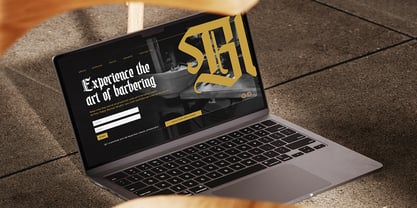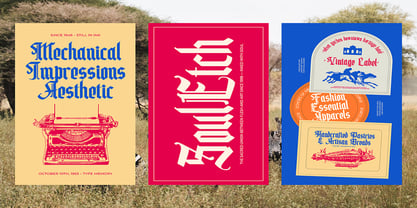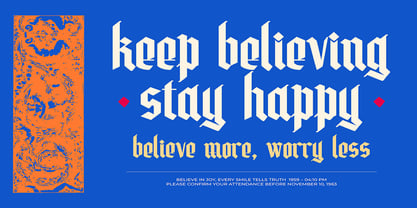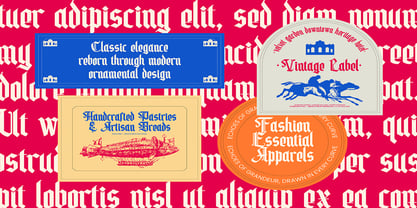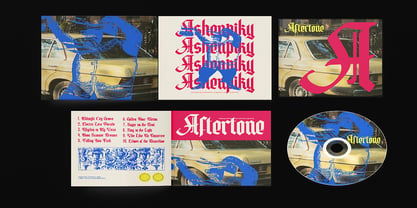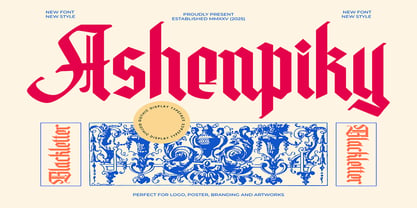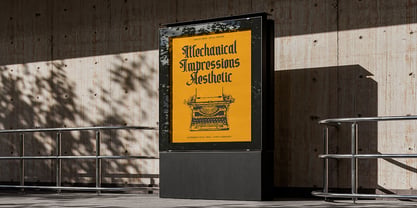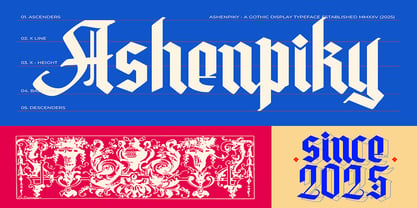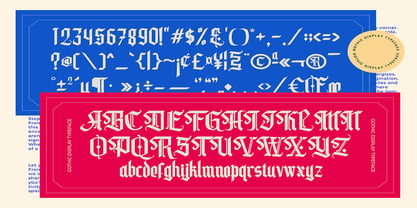
Ashenpiky
Ashenpiky: Classic Elegance, Reborn for the Modern Era
Unleash the power of bold, dramatic typography with Ashenpiky, a striking gothic display typeface designed to command attention. Balancing traditional blackletter roots with a sharp, contemporary edge, Ashenpiky brings a mesmerizing rhythm and unmistakable presence to any layout.
Whether you are crafting an identity rooted in heritage or pushing the boundaries of modern streetwear and editorial design, this font bridges the gap between ancient artistry and cutting-edge aesthetics.
Key Features
• Distinctive Blackletter Anatomy: Features tall, structural ascenders, sharp diamond-shaped punctuation, and beautifully curved ornamental entry strokes on capitals that give your text a hand-drawn, artisanal soul.
• Modern Geometry & Rhythm: Engineered with balanced x-heights and precise spacing to ensure it remains surprisingly legible while retaining its aggressive, edgy character.
• Complete Character Set: Fully equipped with uppercase letters, lowercase letters, numbers, and an extensive array of symbols and punctuation marks to cover all your creative needs.
Perfect For:
• Branding & Logos: Make an unforgettable statement for barber shops, heritage hotels, boutique apparel lines, or artisanal culinary brands.
• Merchandise & Album Art: Inject attitude into vinyl covers, CD packaging, apparel graphics, and streetwear lookbooks.
• Posters & Editorial Layouts: Create commanding headlines, high-contrast display ads, and beautiful vintage-style signage that pulls viewers in from afar.
Bring an echo of grandeur and an uncompromising attitude to your next project. Elevate your design toolkit with the timeless, sharp sophistication of Ashenpiky.